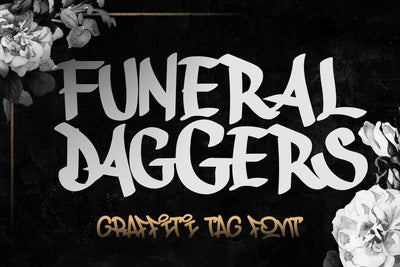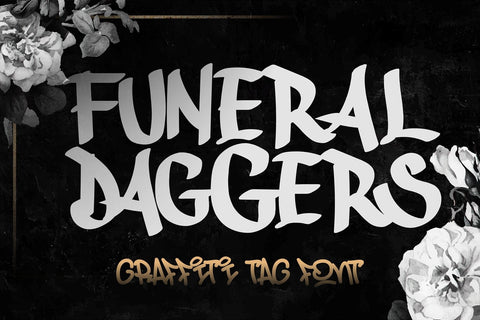
Funeral Daggers - Horror Graffiti Font
Funeral Daggers is a chilling and macabre horror graffiti tag font that captures the essence of dark and sinister aesthetics. With its sharp and jagged letterforms, this font evokes a sense of fear and unease, perfect for horror-themed designs. Each letter is designed with twisted and distorted elements, resembling the ominous strokes of a graffiti tag. The font's dripping and decaying details add an extra layer of horror, giving it an authentic and gritty feel. **Funeral Daggers** is ideal for creating impactful headlines, posters, album covers, or any project that requires a haunting and eerie touch. With this font, your designs will immerse viewers into a world of terror and suspense.